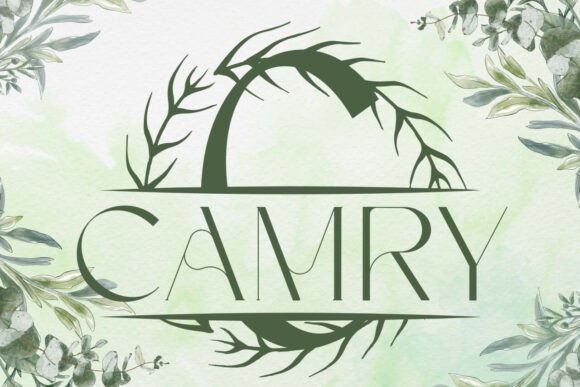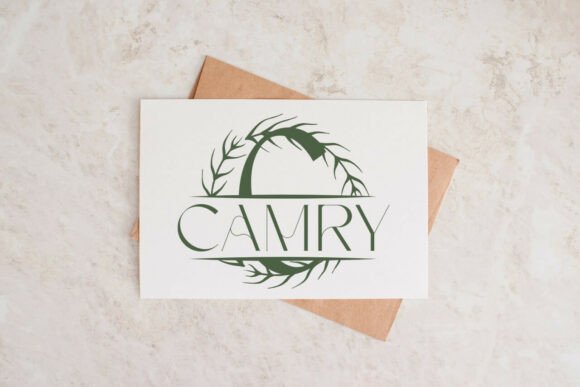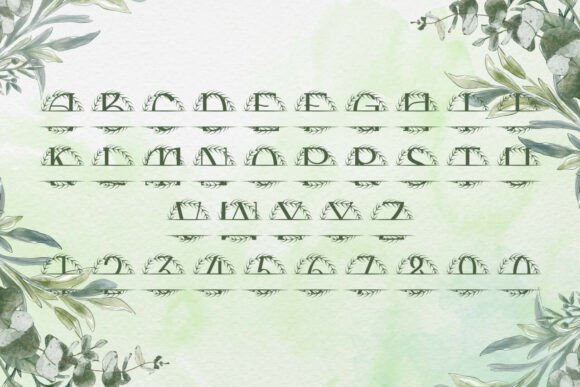
Introduction to Marquessia Split Monogram Font
Meet Marquessia Split Monogram Font turns any initial into an heirloom-ready, name-driven emblem in seconds.
Calm, confident letterforms project classic poise, while a precise horizontal split creates natural space for names, dates, or short words Because spacing stays even and counters remain open, designs look polished from tiny tags to statement wall art.
Key Features of Marquessia Split Monogram Font
Why Choose Marquessia Split Monogram Font?
Marquessia Split Monogram Font offers exceptional quality and versatility, making it a valuable addition to your design toolkit. Whether you’re creating for personal projects or commercial use, Marquessia Split Monogram Font delivers professional results.